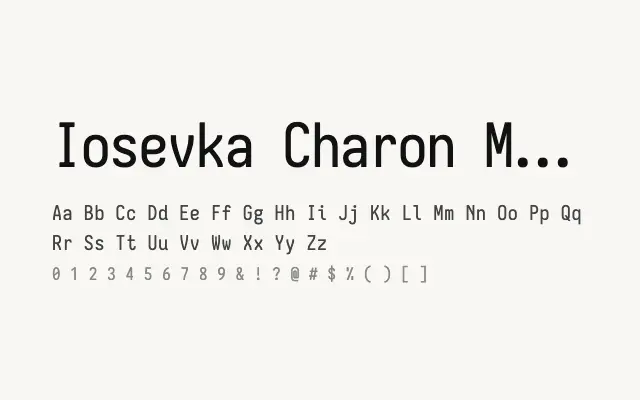
Iosevka Charon Mono
The strictly monospaced cut of Iosevka Charon, maintaining uniform character widths for coding and terminal contexts.
Iosevka Charon Mono enforces consistent glyph widths throughout, making it the more orthodox choice for coding environments that demand true monospacing for alignment and readability. It carries the same narrow proportions and broad script support as Iosevka Charon, including Armenian and Braille. The four-weight range covers most practical needs for developers and technical writers.
Iosevka Charon Mono is the strictly monospaced variant within the Charon subfamily, enforcing uniform character widths compared to the quasi-proportional default. It shares the same condensed, utilitarian character and broad script coverage.